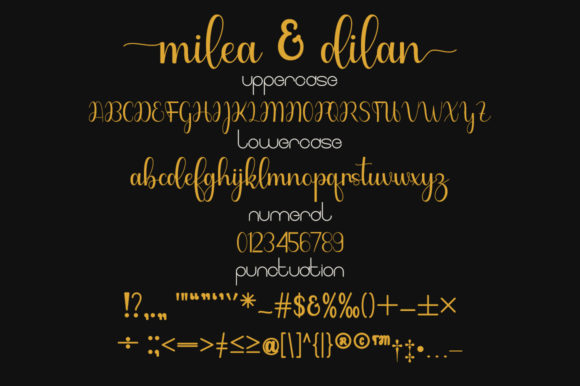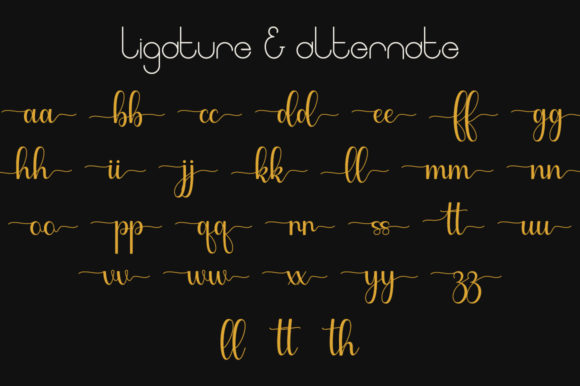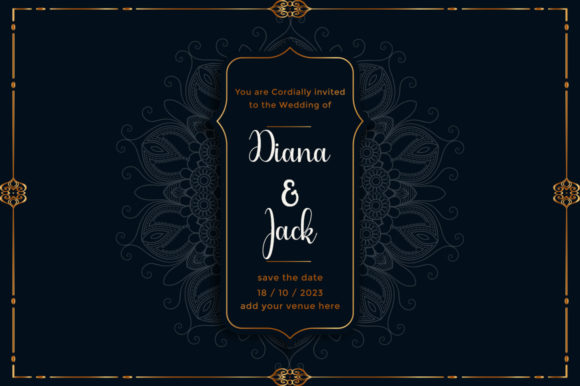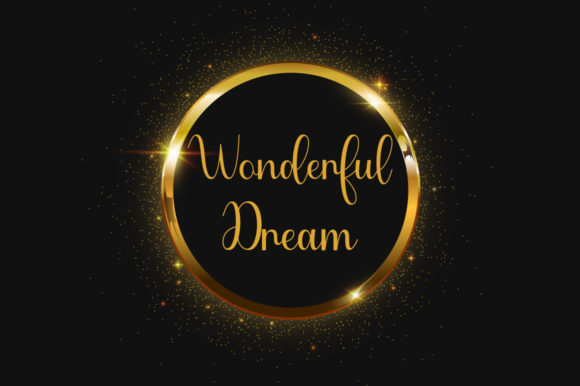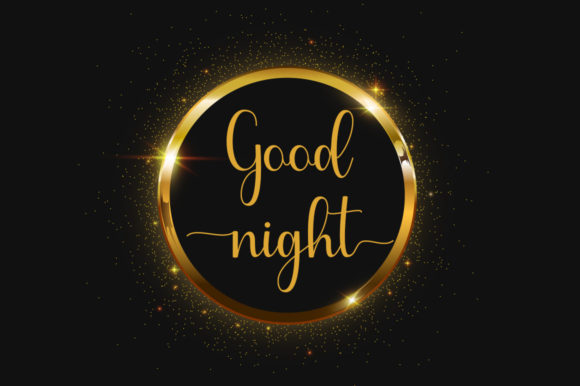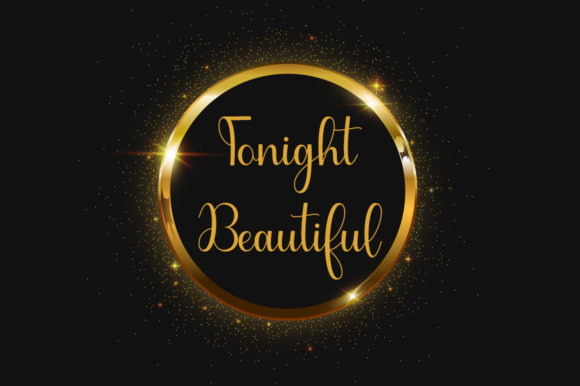
Introduction to Milea Dilan Font
Have you ever found yourself scrolling through a design inspiration board, and suddenly, a beautiful handwritten font catches your eye? That’s exactly what happened to me when I stumbled upon the Milea Dilan Font. Its elegant, romantic script style perfectly captures the essence of a creative project, making it a valuable design resource for any project.
As a designer, I know how crucial it is to have access to high-quality fonts that can elevate our work. The Milea Dilan Font is a perfect addition to any design library, offering a unique blend of style and sophistication. With its PUA encoding, you can easily access all the glyphs and swashes, allowing for endless creative possibilities.
Key Features of Milea Dilan Font
- High-quality design for creative projects with a modern and elegant feel
- Unique characteristics include a clean and minimalist aesthetic, making it perfect for use in logos, headings, and body text
Honest Review: Milea Dilan Font
I recently had the chance to work with the Milea Dilan Font, and I must say it’s a fantastic addition to any designer’s toolkit. The Milea Dilan Font is a free download that’s perfect for creative projects requiring a unique and stylish touch.
- ✨ High-quality design that’s both modern and elegant
- ✨ Transparent background makes it easy to work with
While the Milea Dilan Font is a great resource, there are a few limitations to consider:
- ⚠️ Limited character set, which may not be suitable for extended text-based projects
- ⚠️ Not ideal for large-scale print projects due to potential legibility issues
Overall, I’m really impressed with the Milea Dilan Font. It’s a fantastic design resource that’s perfect for adding a touch of elegance to creative projects. While it may not be suitable for every project, it’s definitely worth considering for designs that require a high level of sophistication.
Tips for Getting the Most Out of Milea Dilan Font
The Milea Dilan Font is ideal for:
Graphic design projects
Logo creation
Print materials, such as business cards and brochures
Q: Does the Milea Dilan Font have a transparent background?
Yes, the Milea Dilan Font has a transparent background, which makes it ideal for use in designs that require a high level of flexibility and customization. The transparent background allows designers to easily combine the font with other design elements and backgrounds, creating a seamless and professional look.